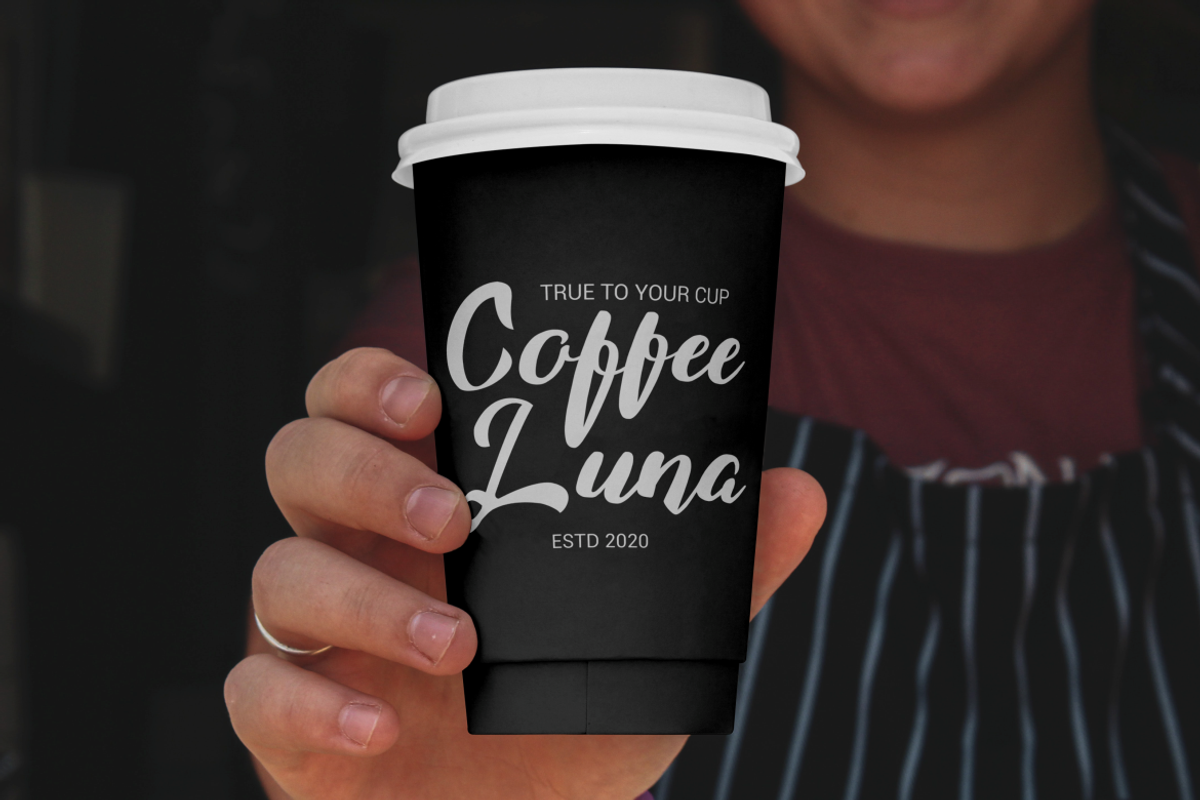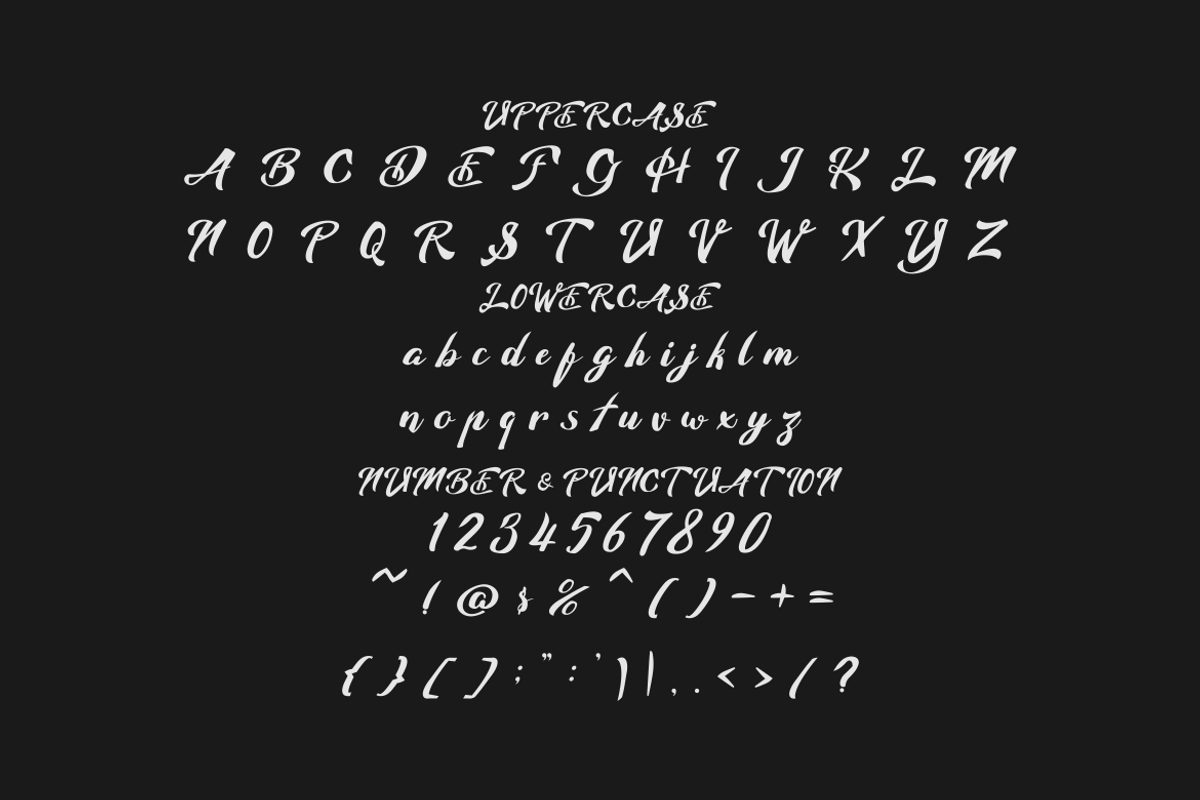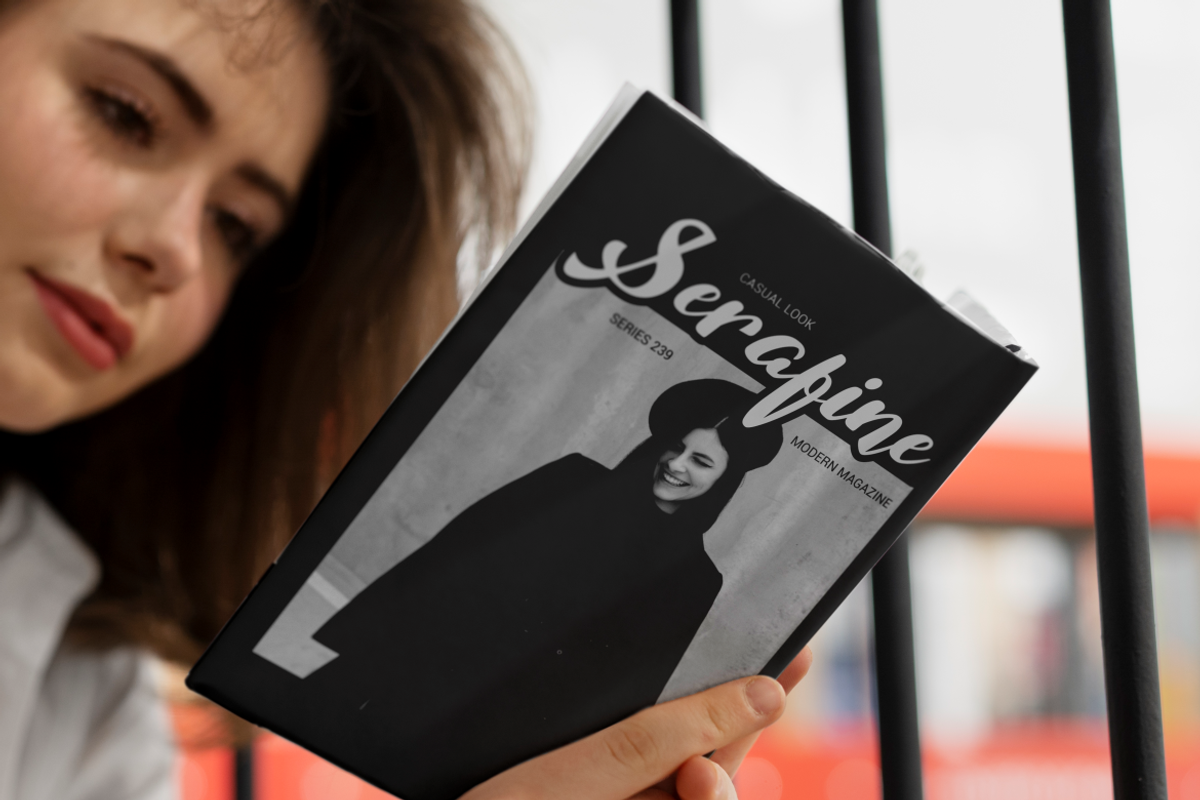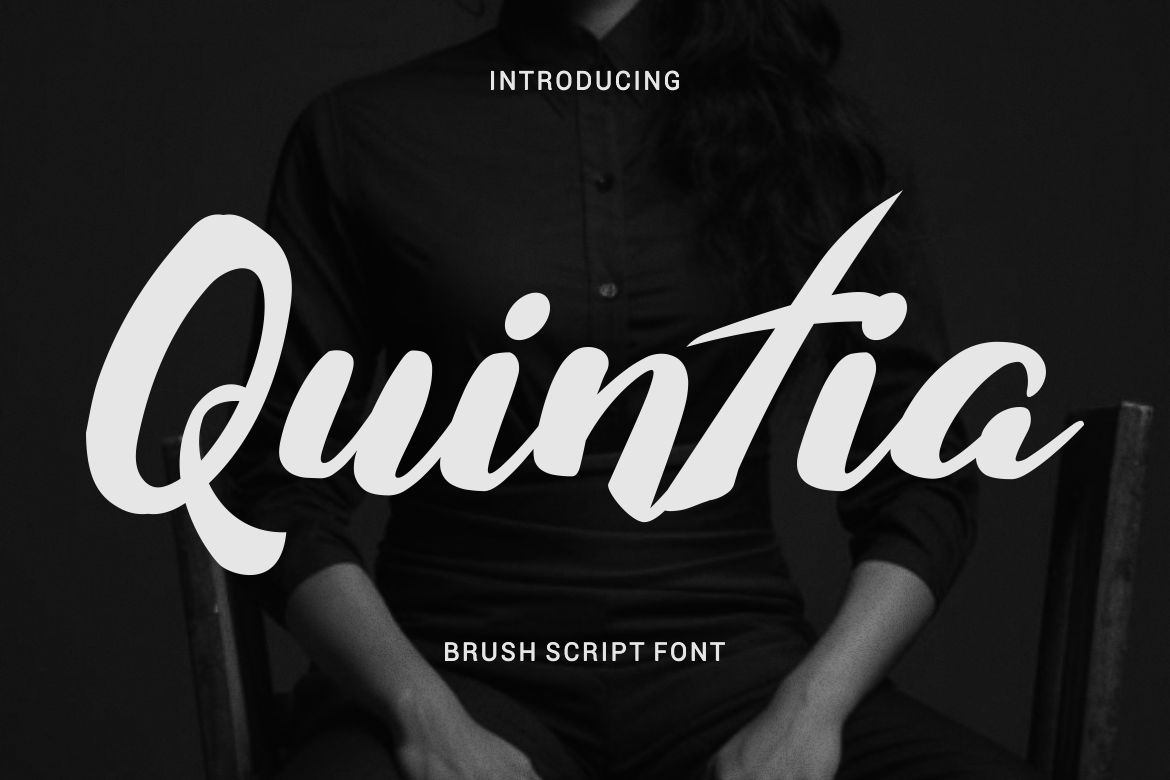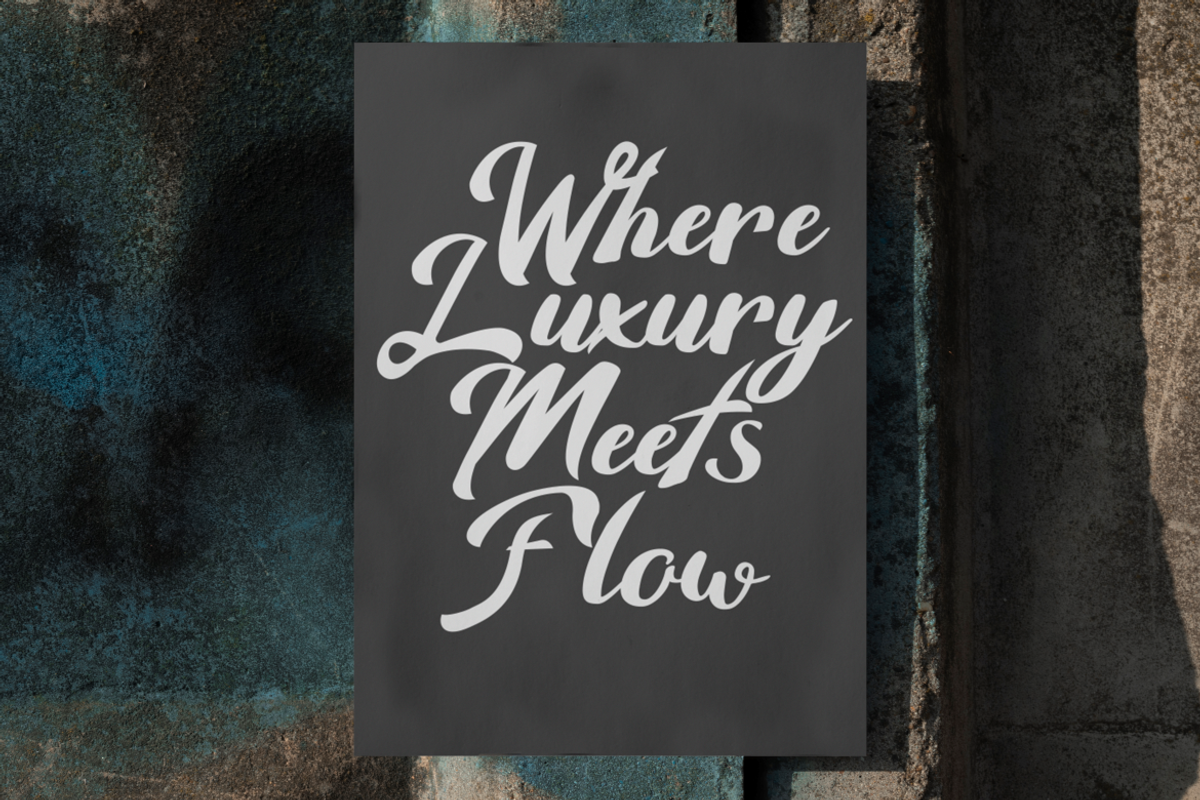
Quintia Modern Brush Script Font
Quintia Modern Brush Script Font delivers a confident handwritten voice through smooth, flowing letterforms and balanced proportions. Each character shows natural brush movement with visible stroke contrast, combining thicker downstrokes and lighter connecting lines. The letter shapes feel organic and fluid, yet remain controlled and readable. Rounded terminals and soft curves create a refined rhythm, while subtle angles add personality without looking rough. The overall height feels well-proportioned, giving the font a graceful vertical flow that works well in both short words and longer phrases. Spacing feels natural, allowing letters to connect smoothly while maintaining clarity. Quintia Modern Brush Script Font captures a modern script aesthetic that feels warm, expressive, and intentional rather than casual or messy.
This font fits projects that need personality, emotion, and a human touch. Quintia Modern Brush Script Font works especially well for logos, branding systems, headlines, posters, packaging, and social media graphics. It also performs beautifully on invitations, greeting cards, product labels, magazine covers, book covers, stickers, and film titles. The modern brush style makes it suitable for fashion brands, cafés, lifestyle products, creative businesses, and personal brands. Its expressive curves add charm to quotes and promotional text while still supporting professional design needs. The script structure offers strong visual impact without overpowering supporting typography. Quintia Modern Brush Script Font helps designers communicate warmth, creativity, and confidence in a single glance.